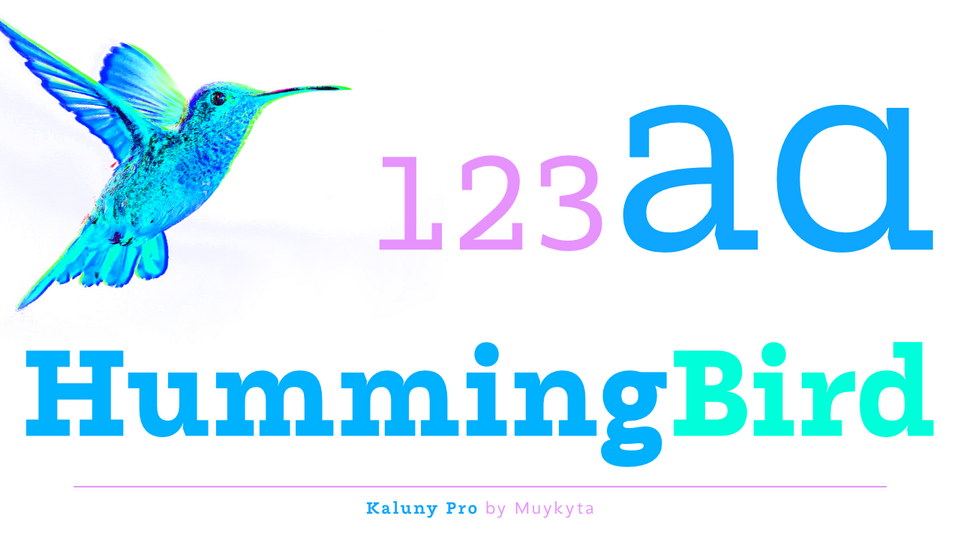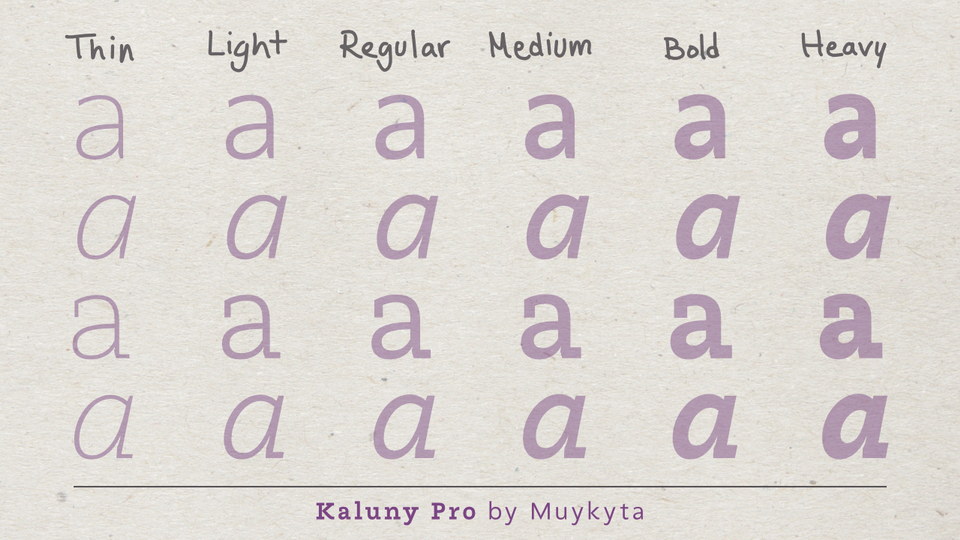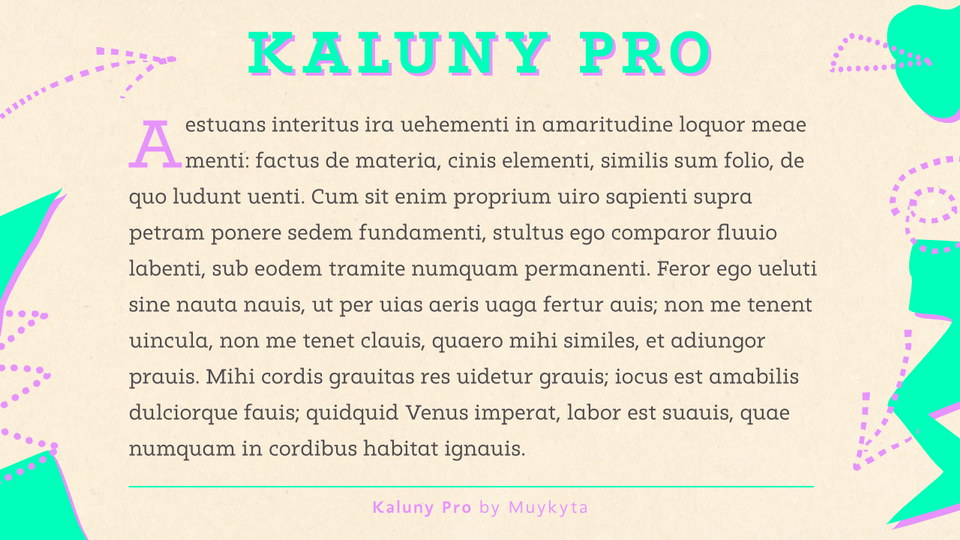
Kaluny Pro is a humanistic style typeface. It has two versions: one slab serif and one non-slab serif. Modern and with some classic features, it is easy to read and forms a homogeneous set.
The free version of Kaluny Pro includes 8 fonts, the complete family comes 7 weights and matched Italics.